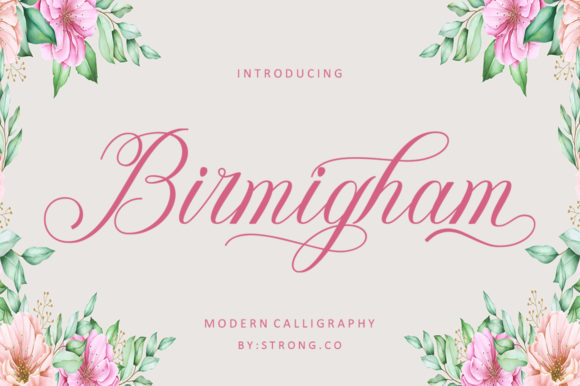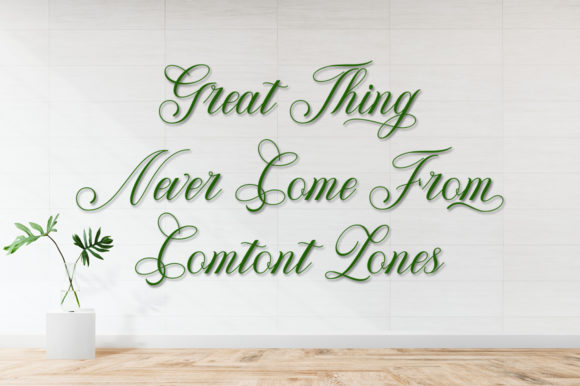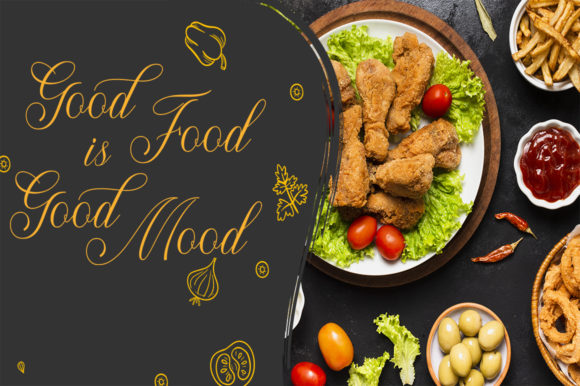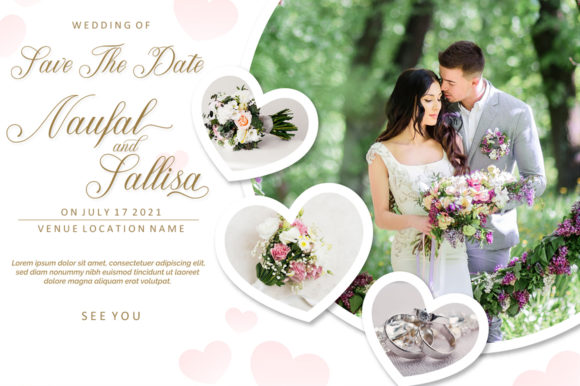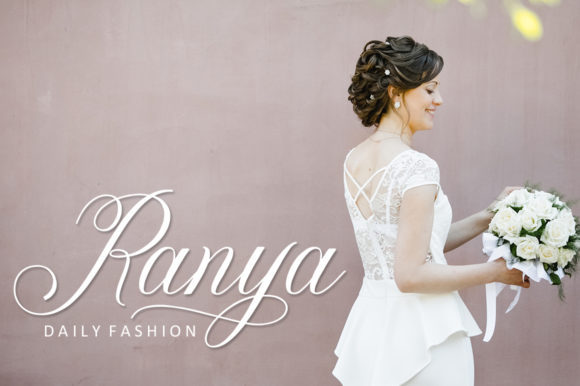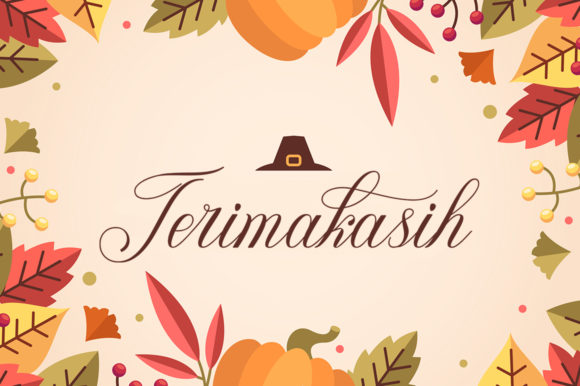
Birmigham Font
About Birmigham Font
Birmigham is an elegant handwritten font, with a lovely calligraphy. It features a varying baseline, smooth lines, gorgeous glyphs and stunning alternates. Its equally classic style and friendly feel enable Birmigham to be the perfect font for making original and outstanding designs.